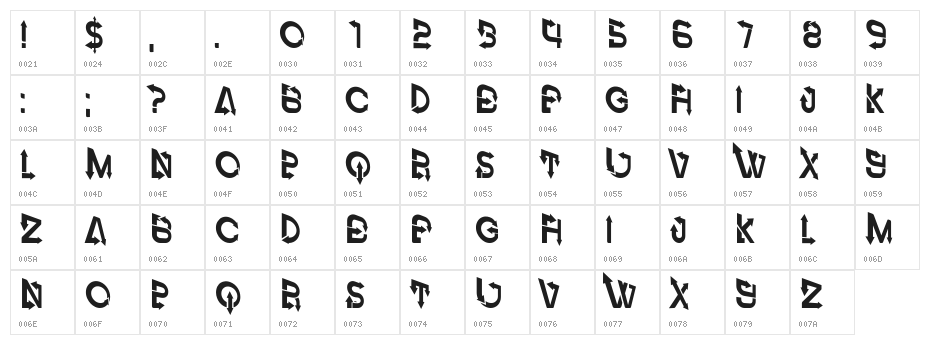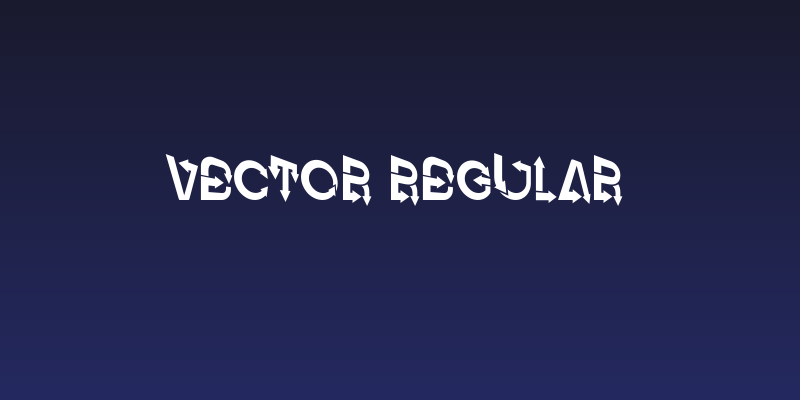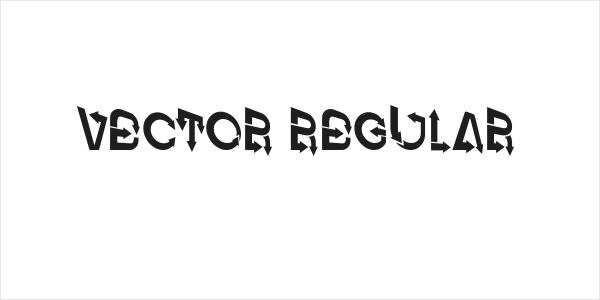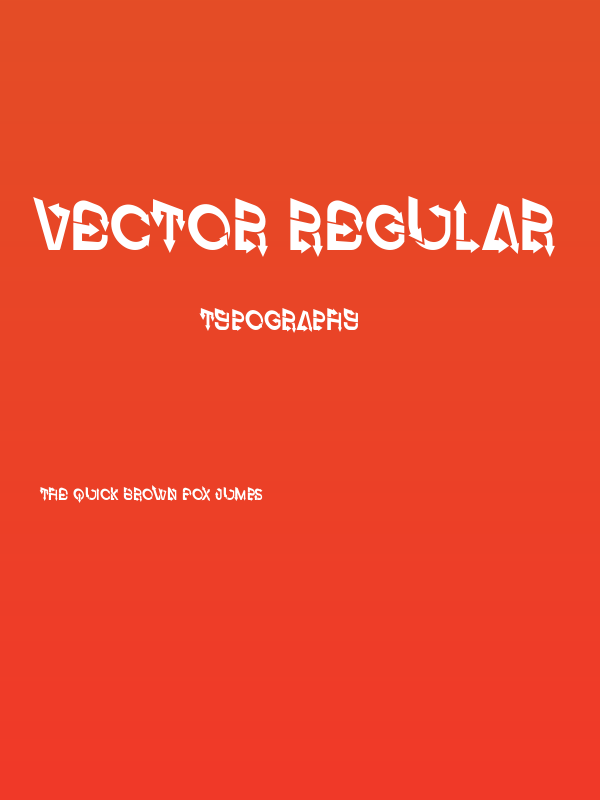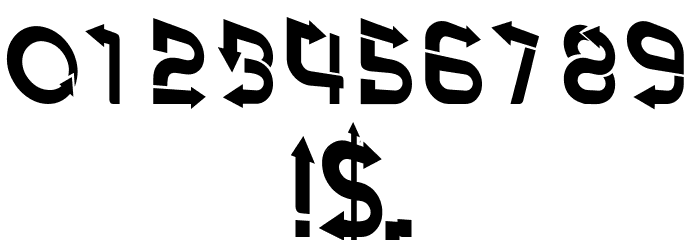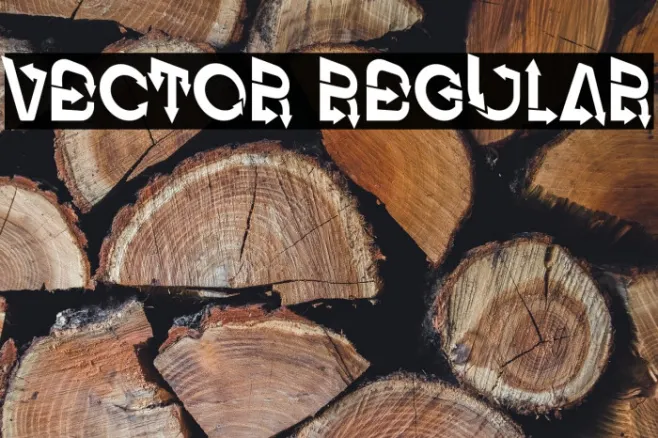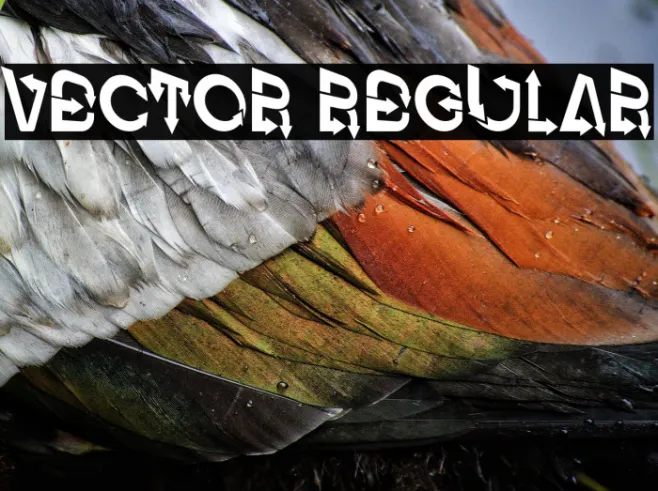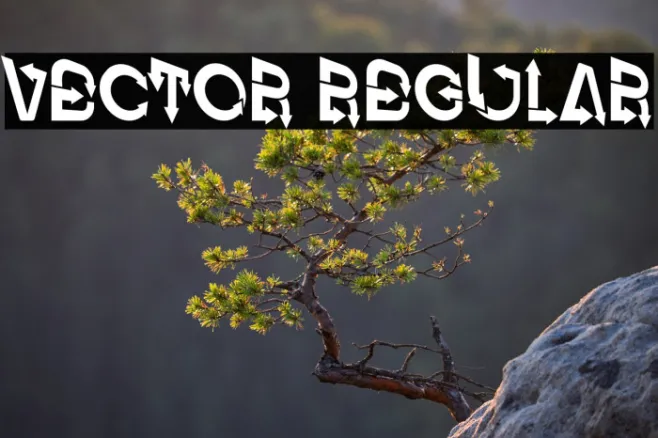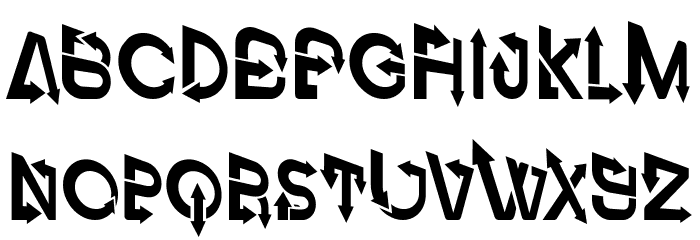
Vector Regular Font
Vector Regular Description
This font features a bold and striking design with geometric elements and arrow motifs integrated into each character. The uppercase and lowercase letters share a consistent style, emphasizing angular shapes and directional arrows that create a sense of movement and modernity. The numerals and special characters maintain this cohesive design, making the font suitable for eye-catching displays. Its unique aesthetic is ideal for projects that require a futuristic or tech-inspired look.
| Proposed Projects | Ideal for branding, posters, video game graphics, and tech-themed designs. |